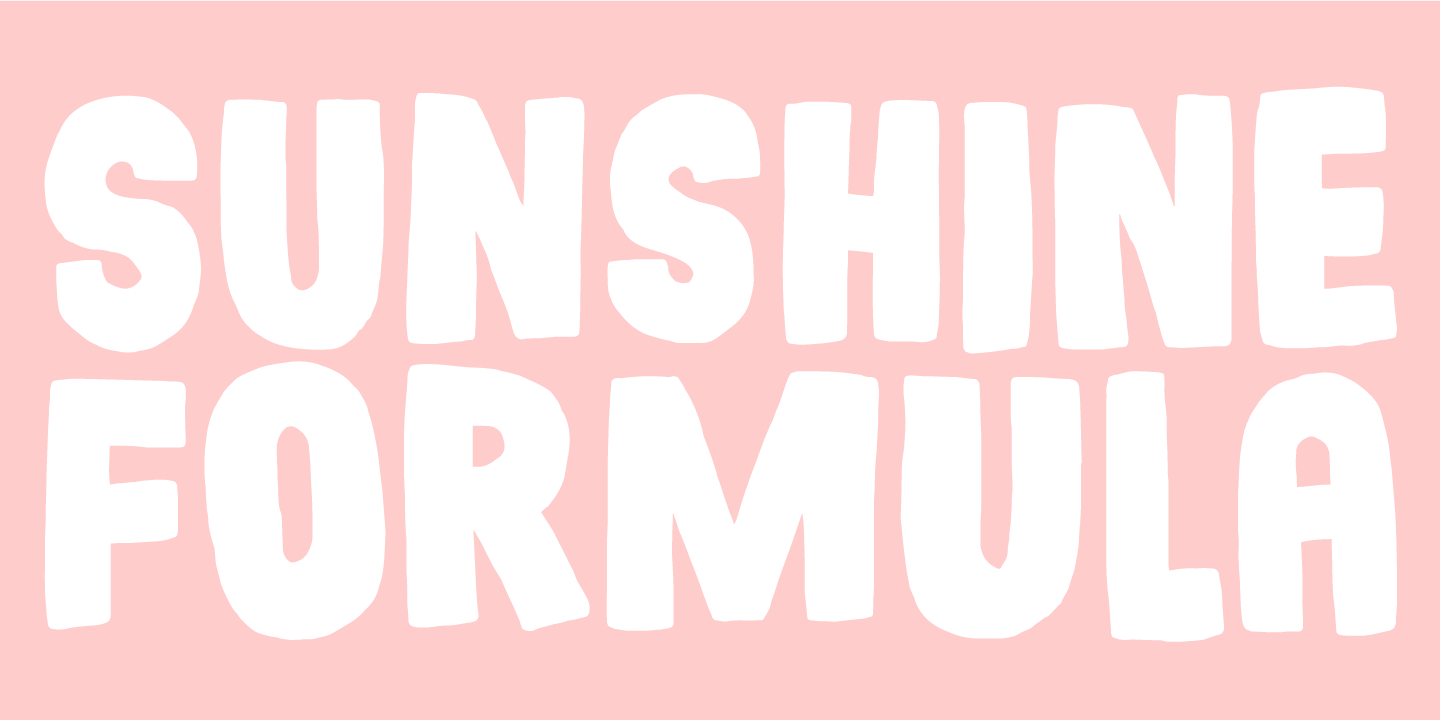
Sunshine Formula Font is perfect for cheerful children's book covers, vibrant summer campaign designs, playful toy packaging, bright educational materials, sunny travel brochures, optimistic wellness branding, joyful social media graphics, uplifting motivational posters, and energetic event promotions.
What makes Sunshine Formula Font exciting is its radiant energy and uplifting character that instantly brings joy, warmth, and positivity to any design project. This delightful typeface features bright, cheerful letterforms with optimistic curves that evoke feelings of happiness, summer sunshine, and carefree moments. The font's vibrant personality makes it perfect for brands seeking to communicate positivity, energy, and life-affirming messages that inspire and uplift audiences.
Sunshine Formula Font family includes multiple bright variations: Regular, Bold, Light, Extra Bold, Italic, Rounded, Outline, Shadow, and Playful versions. The family also features sunny decorative elements, cheerful alternates, happy ligatures, sunshine motifs, and energetic flourishes that enhance its joyful appeal and creative possibilities.
Brighten your designs with Sunshine Formula Font Free Download – a vibrant typography solution that brings happiness, energy, and sunny optimism to every creative project. This cheerful font transforms ordinary communications into celebrations of positivity, making it essential for brands and designers creating uplifting, memorable experiences.
The radiant construction of Sunshine Formula Font showcases careful attention to positive psychology and cheerful design principles. Each character has been lovingly crafted to maximize emotional impact and create instant feelings of joy and warmth. The font's sunny disposition creates immediate positive associations that enhance brand perception and audience engagement.
Children's brands and educational companies will appreciate Sunshine Formula Font's ability to communicate fun, learning, and positive development. The font's playful appearance creates materials that engage young audiences while maintaining readability for educational content. Its cheerful character helps establish trust with parents and educators seeking quality, uplifting materials.
Wellness and lifestyle brands benefit from Sunshine Formula Font's optimistic energy that resonates with health-conscious consumers seeking positive life experiences. The font's bright character enhances marketing materials that promote well-being, happiness, and personal growth. Its uplifting appearance creates emotional connections that drive brand loyalty and positive associations.
Digital applications showcase Sunshine Formula Font's effectiveness in social media campaigns, websites, and mobile apps focused on positivity and engagement. The font maintains its cheerful energy across various screen sizes and platforms, ensuring consistent uplifting messaging. Its optimized design performs excellently in both large display applications and smaller interface elements.
Travel and tourism industries find Sunshine Formula Font perfect for communicating adventure, relaxation, and joyful experiences. The font's sunny character enhances promotional materials that inspire wanderlust and positive vacation memories. Its energetic appeal creates compelling marketing that drives bookings and destination interest.
Print materials featuring Sunshine Formula Font create vibrant results in magazines, brochures, and promotional campaigns. The font's bright reproduction ensures excellent visibility and positive impact across various printing methods. Its cheerful appearance attracts attention while maintaining professional quality standards.
Sunshine Formula Font represents the perfect fusion of emotional positivity and professional design functionality, enabling creators to spread joy and optimism through every typographic application and brand communication.